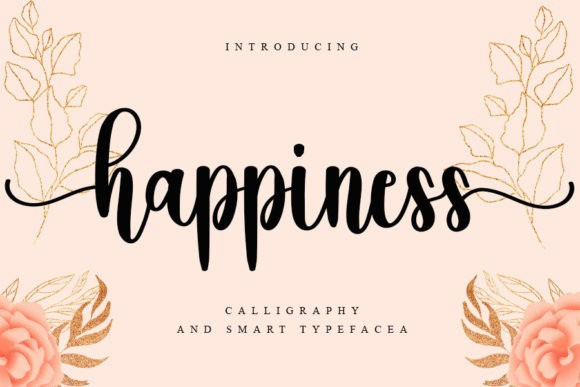
Happiness Font
Happiness Script Font is a lovely and delicate script font that exudes elegance and class. This font was particularly crafted for those who need a beautiful and refreshing look to their designs.